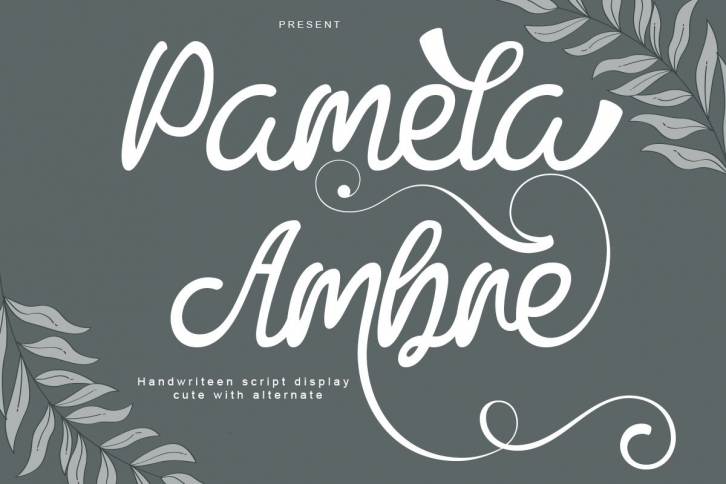
Pamela Ambre  This is a beautiful and unique handmade script font, there is something natural in the design of this font, it can be used for your various design needs, it can act like a signature, and it can act as a romantic lettering or invitation.